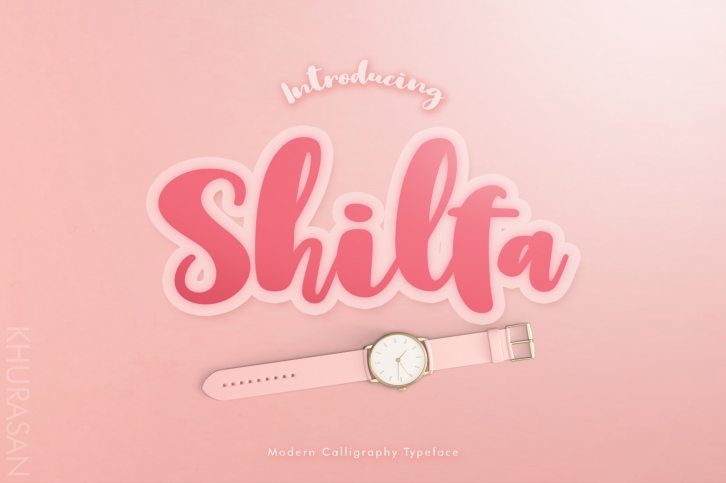
Shilfa Script is a beautiful font that was designed by khurasan. It's a great choice for designers and creatives who need such a font. It was released on October 16, 2018 and the file size is 15.18 MB. Shilfa Script may give a more youthful, expressive and casual look to your project. It is a very beautiful, refined, elegant, and high-quality font.